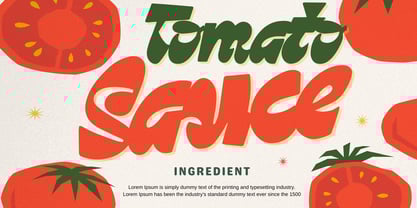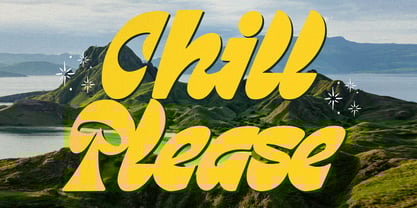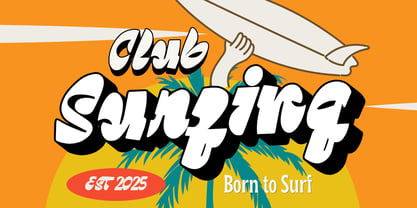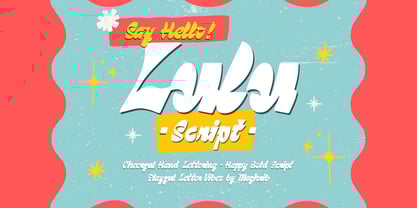
Lulu
par Maghrib Type
La famille de polices Lulu a été conçue par Rizky Setyaludin et publiée par Maghrib Type. Lulu contient 1 styles. En savoir plus sur cette famille
Lulu Script is a bold, playful, and cheerful hand-lettered font designed to bring a burst of energy and a nostalgic "happy-go-lucky" feel to your creative projects. Inspired by vintage surf culture and retro 70s aesthetics, this font features thick, fluid strokes and bouncy letterforms that instantly command attention. Whether you are designing a catchy logo for a "Club Surfing" brand, creating vibrant summer posters, or developing fun merchandise, Lulu Script offers a perfect balance of personality and readability. Its chunky, hand-drawn character makes it ideal for display use, giving your work an authentic, artisanal touch that looks like it was painted right onto a surfboard or a retro diner window. Key Features: Bold & Impactful: Perfect for headlines, titles, and branding that needs to stand out. Retro Aesthetic: Captures the 1960s and 70s surf and beach culture vibe. Versatile Design: Works seamlessly for apparel, stickers, social media graphics, packaging, and children’s books. Cheerful Personality: Designed to evoke feelings of joy, warmth, and fun. Bring your designs to life with the sunny disposition of Lulu Script. It’s more than just a font—it’s a vacation for your typography!
Concepteurs: Rizky Setyaludin
Fonderie: Maghrib Type